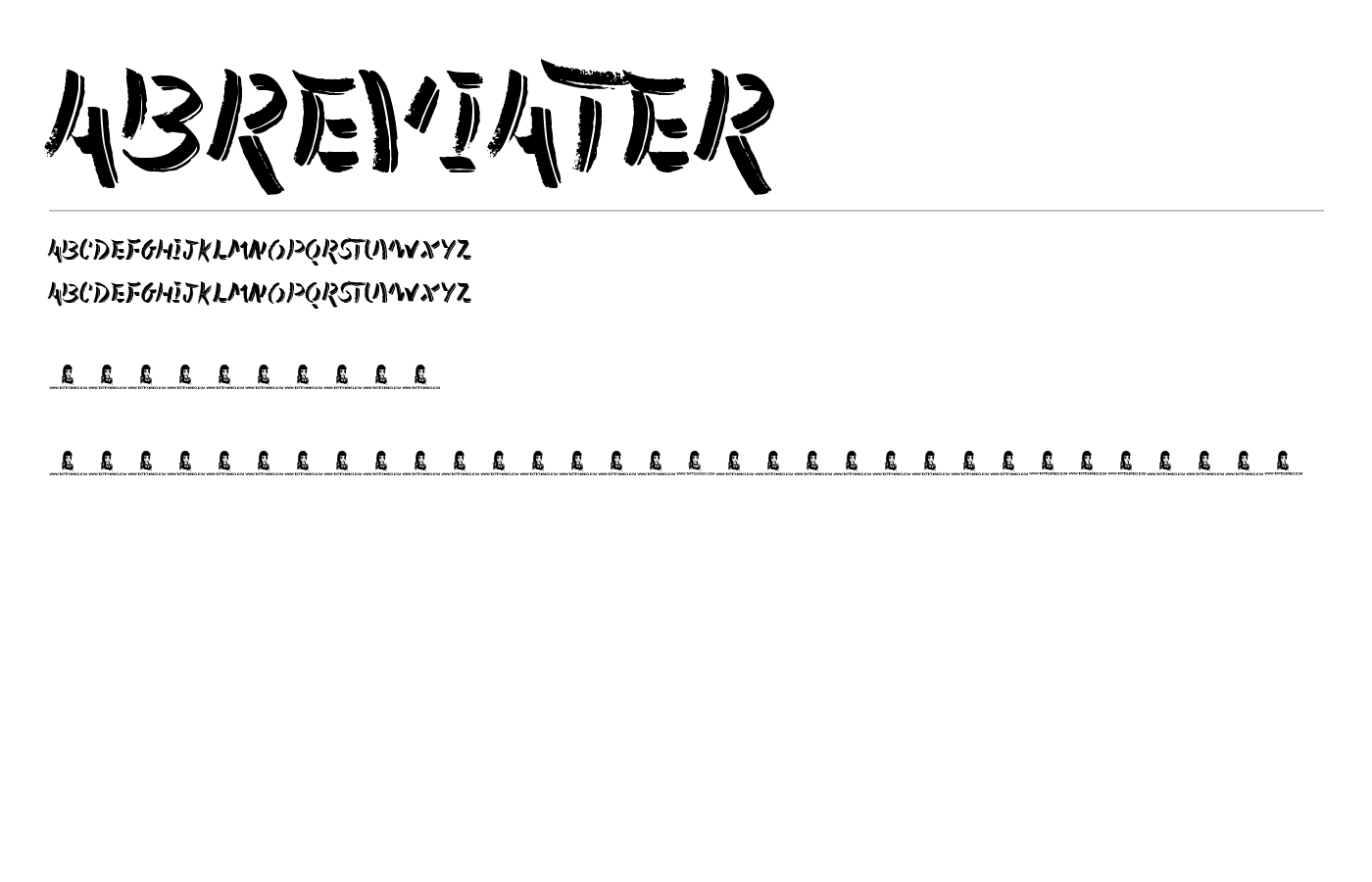
Abreviater is a bold, expressive display font with a hand-painted brush style that offers a raw, dynamic energy. Its irregular strokes and slightly condensed letterforms give it a unique, artistic personality, making it perfect for edgy logos, posters, and creative branding that aims to stand out with a striking, modern flair. This font works best in dramatic headlines and graphic-heavy designs where its strong visual impact can shine.
Abreviater Font
About Abreviater Font